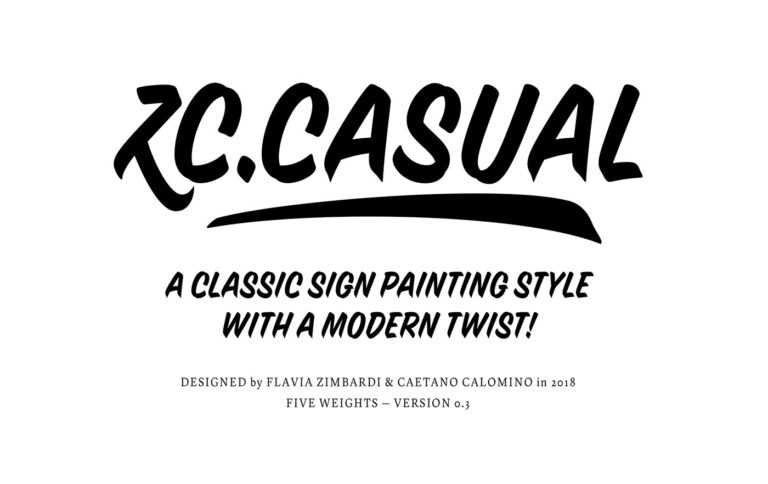
Casual Font: Adding a Touch of Informality to Your Designs
In the world of typography, fonts play a significant role in setting the tone and conveying the message of a design. While formal fonts are commonly used for professional and serious projects, casual fonts have their own charm when it comes to creating a relaxed and laid-back atmosphere.
Casual fonts are characterized by their informal and friendly appearance. They are often associated with personal communication, casual settings, and creative designs. These fonts add a touch of informality and approachability to any project, making them popular choices for various purposes.
One key aspect of casual fonts is their handwritten or script-like appearance. These fonts often mimic the style of handwriting, giving them a unique and personal touch. This aspect makes them suitable for projects that require a personal connection with the audience, such as wedding invitations, greeting cards, or personal blogs.
Casual fonts also come in various styles, ranging from neat and tidy to messy and playful. Some casual fonts have a clean and smooth appearance, making them suitable for modern designs and professional projects that aim to create a friendly and approachable atmosphere. On the other hand, some fonts have a more whimsical and playful style, ideal for designs related to children, arts, or informal events.
One popular casual font is Comic Sans, known for its playful and informal appearance. Although it has received criticism for being overused and unprofessional in certain contexts, it remains a popular choice for casual and light-hearted designs. Another example is Marker Felt, a font that imitates the look of a marker or felt-tip pen, adding a touch of creativity and informality to any design.
Casual fonts are not limited to handwritten or script-like styles. Some sans-serif fonts can also be considered casual, especially those with rounded edges or a slightly irregular shape. These fonts provide a more relaxed and informal feel, making them suitable for modern designs, branding, and advertising.
When using casual fonts, it is essential to consider the overall design and target audience. While casual fonts can add a personal and friendly touch to a design, they may not be suitable for all contexts. It is crucial to strike a balance between informality and professionalism to ensure that the message is effectively conveyed to the intended audience.
In conclusion, casual fonts are a valuable addition to any designer’s toolbox. They bring an informal and relaxed atmosphere to designs, making them suitable for various purposes. Whether it’s adding a personal touch to wedding invitations or creating a playful vibe for a children’s event, casual fonts play a significant role in setting the tone and conveying the desired message. So, don’t hesitate to explore the world of casual fonts and add a touch of informality to your next design project.